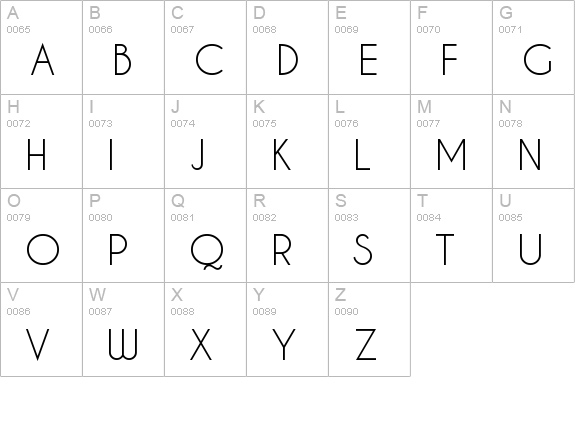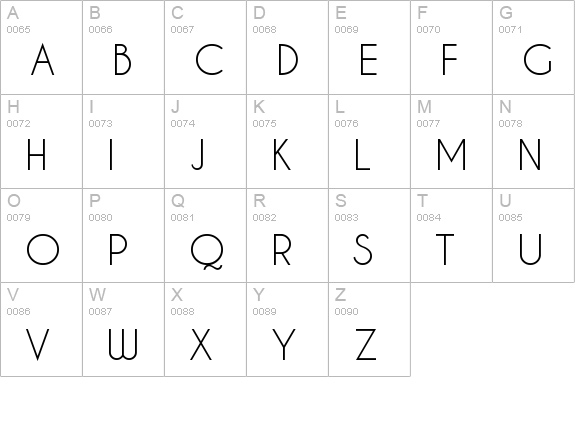
Caviar Dreams Font Details
Caviar Dreams font is the epitome of elegance and sophistication. With its sleek and slender design, this font is perfect for adding a touch of class to any project. The tall and thin letterforms exude a sense of luxury and refinement, making it ideal for high-end branding, invitations, and editorial designs. This font possesses a unique balance between modern minimalism and timeless charm. Its sharp edges and clean lines give it a contemporary feel, while its delicate curves and graceful strokes add a sense of traditional beauty. The result is a versatile typeface that can effortlessly adapt to various design aesthetics. What makes Caviar Dreams font even more enticing is that it is freely available to download at FontsMarket.com. This means that designers and creatives can access this font without any cost, making it an incredibly valuable resource. Whether you're a professional designer or a budding artist, having access to high-quality fonts like Caviar Dreams can elevate your work to new heights. With its extensive character set and multiple font weights, Caviar Dreams font offers endless possibilities for creative expression. Whether you need a bold headline or a subtle accent, this font has the versatility to meet your every need. Its legibility and readability are also commendable, ensuring that your message will be conveyed with utmost clarity. In conclusion, Caviar Dreams font is a free font that embodies elegance, sophistication, and versatility. Its stylish and refined design makes it a perfect choice for a wide range of projects. Whether you're designing a luxury brand, creating invitations, or working on editorial layouts, this font is sure to make a lasting impression. Download Caviar Dreams font for free at FontsMarket.com and add a touch of sophistication to your designs today.